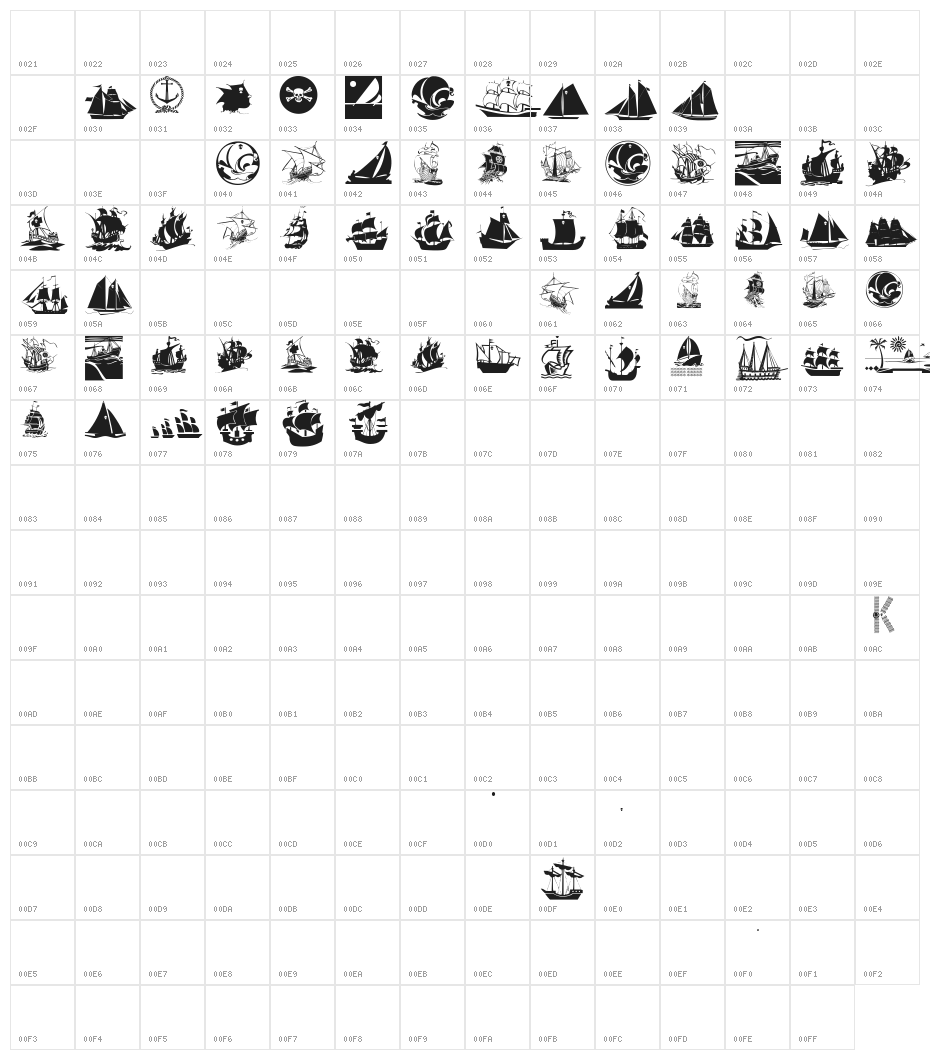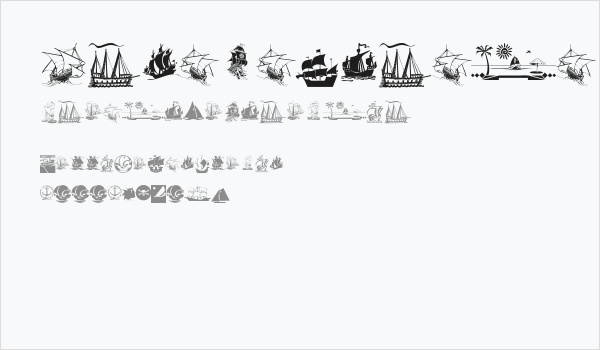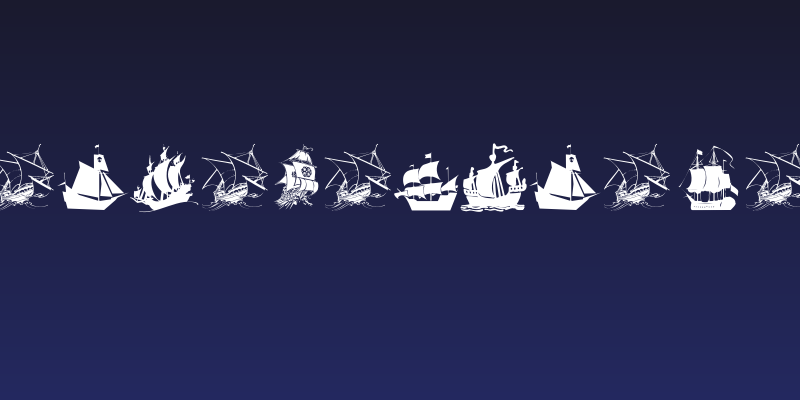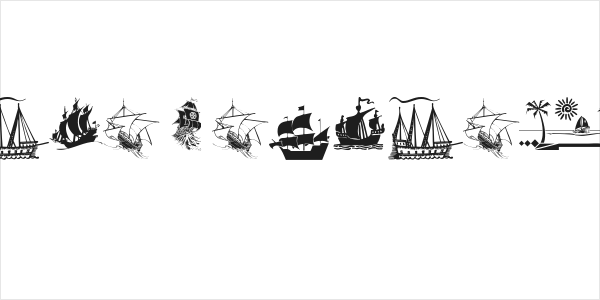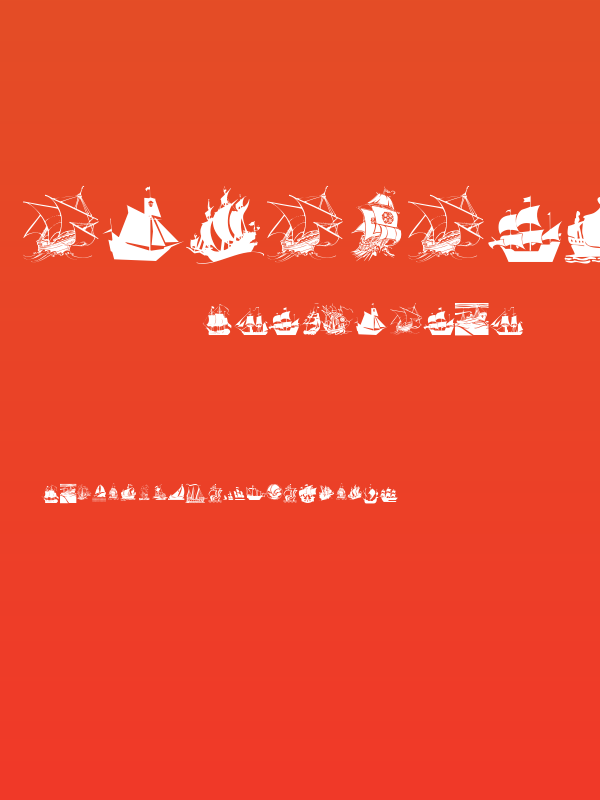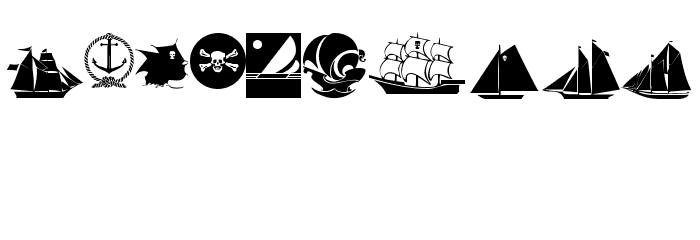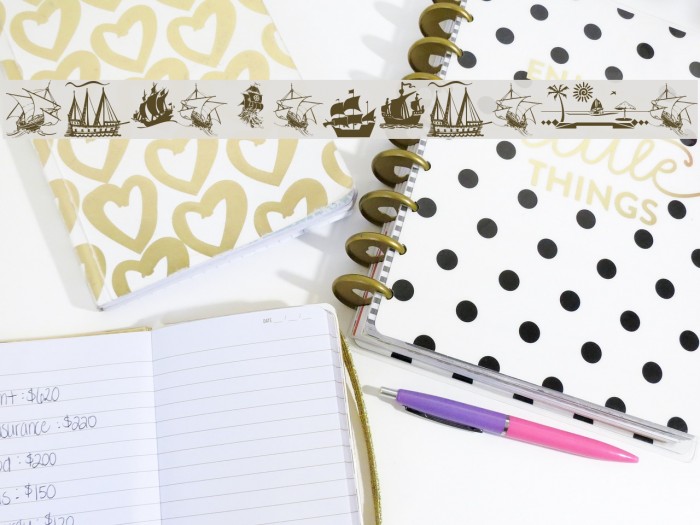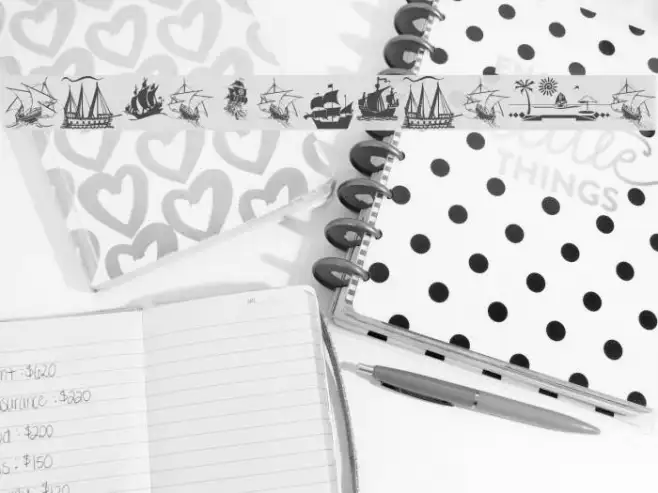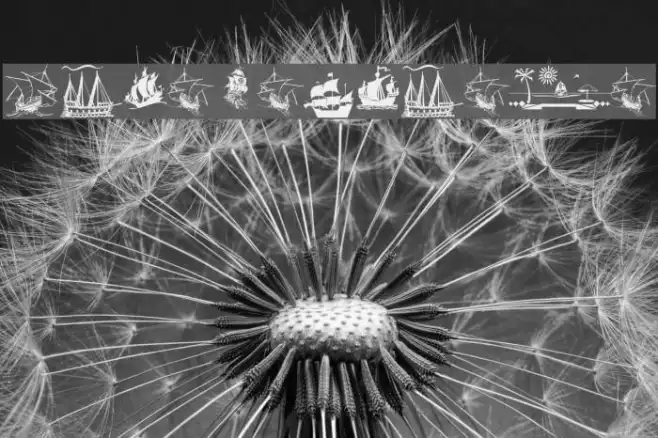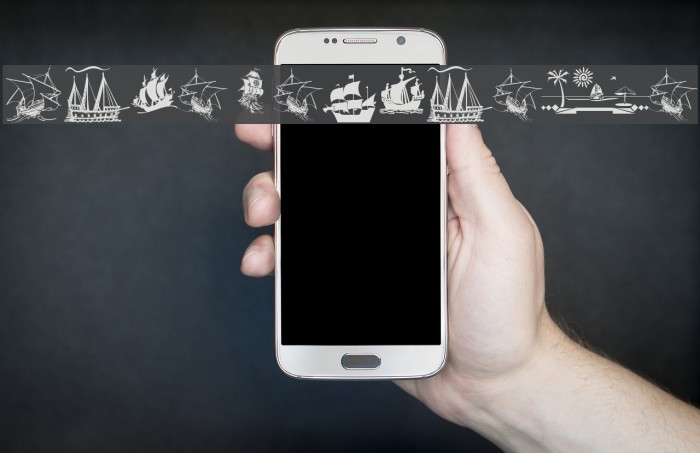
ArmadaPirata Font
ArmadaPirata Description
A decorative dingbat font featuring a variety of pirate ships, sailing vessels, nautical symbols, and maritime-themed icons in bold, high-contrast black silhouettes. Each character is represented by a unique ship or nautical motif, making it highly illustrative and thematic.
| Overall Style | Decorative, Thematic, Nautical |
| Use Case | Icons, Decorative elements, Themed graphics |
| Proposed Projects | Pirate party invitations, treasure maps, themed posters, children’s books, educational materials, event flyers, and branding for nautical or pirate-themed businesses. |